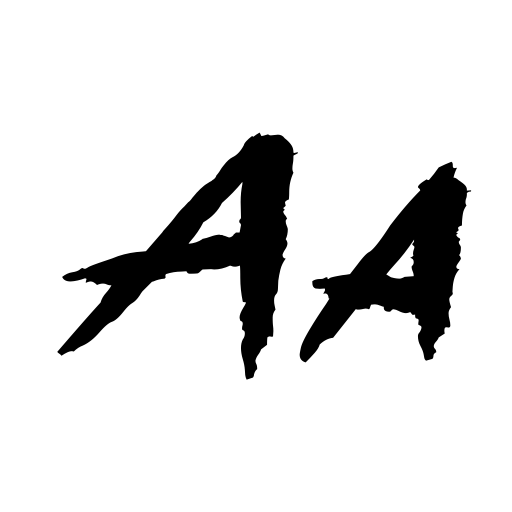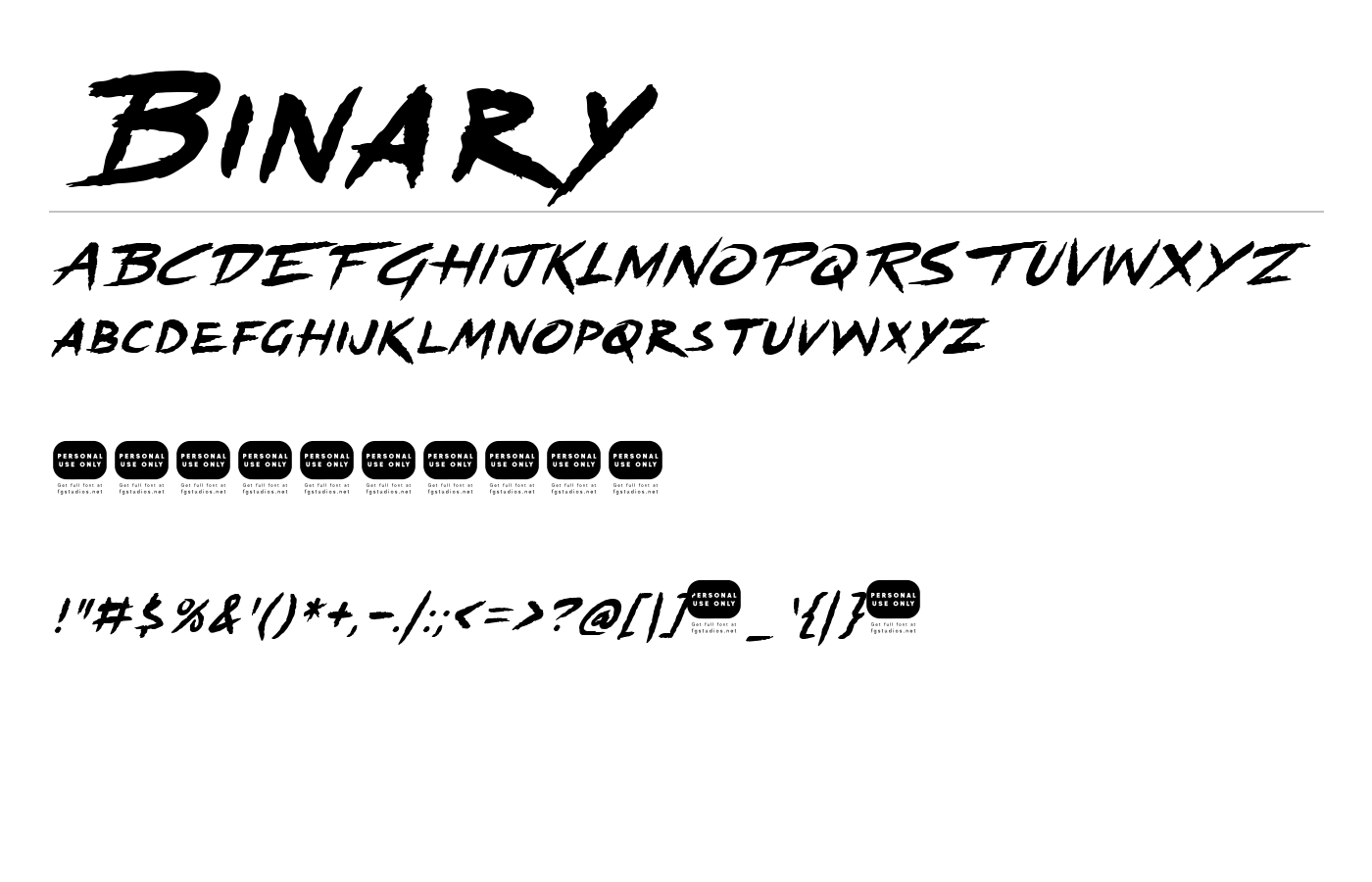
Binary Font is a bold, dynamic brush script with a rough, hand-painted texture that conveys energy and creativity. Its irregular strokes and sharp, angled forms give it an edgy, expressive feel, making it ideal for bold headlines, posters, and artistic branding where a lively, personal touch is desired. This font works best in designs that need to stand out with a raw, authentic, and spirited voice.
Binary Font